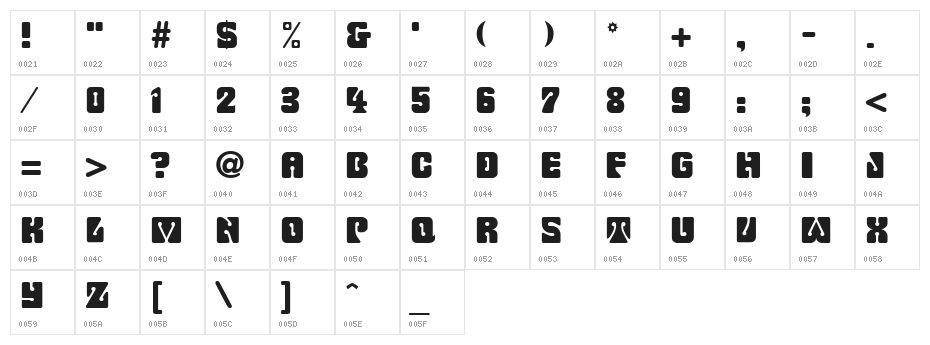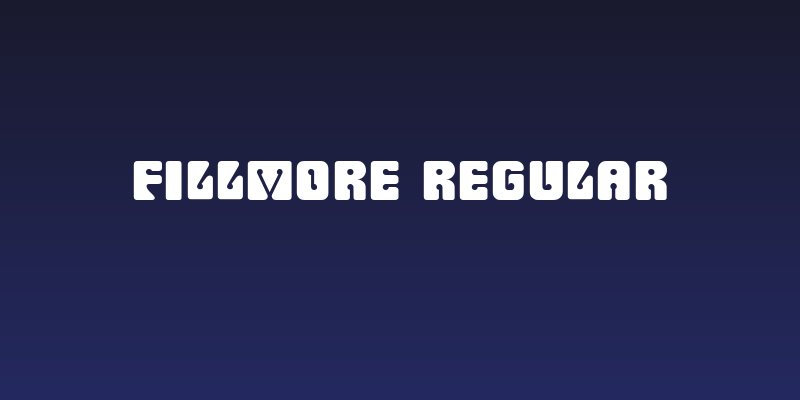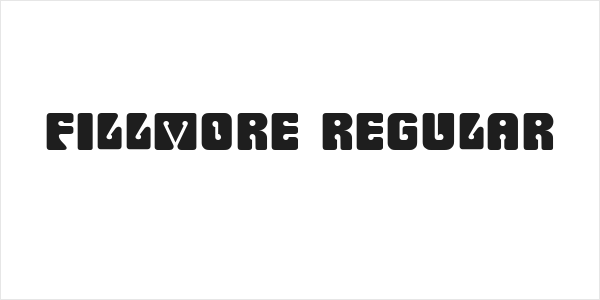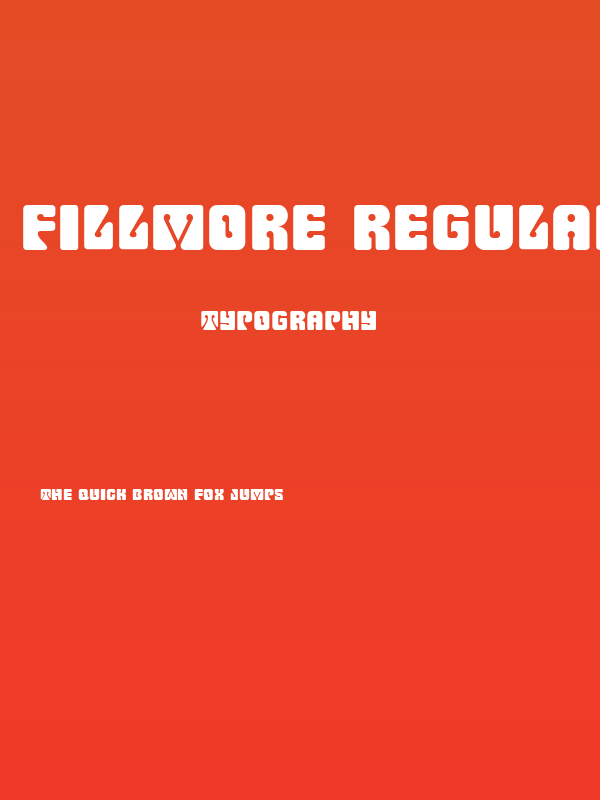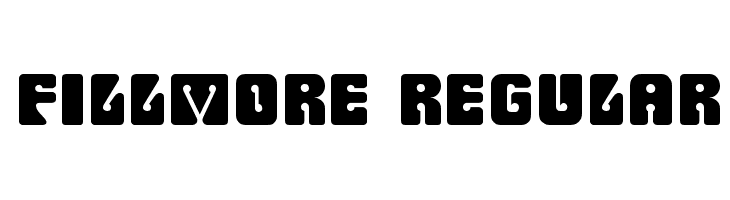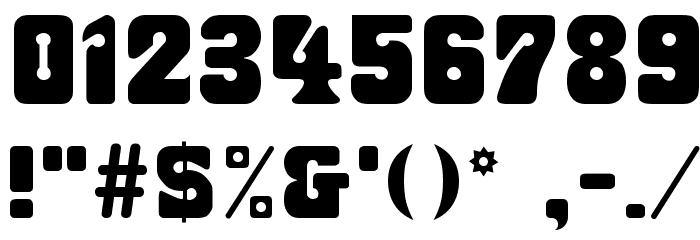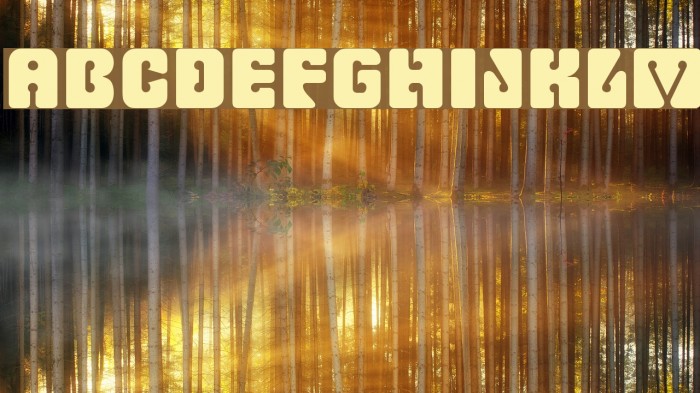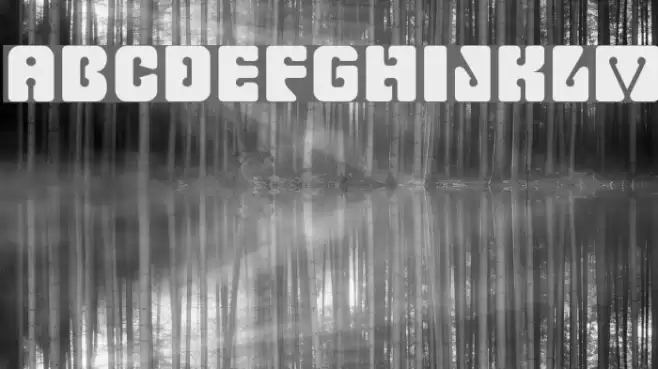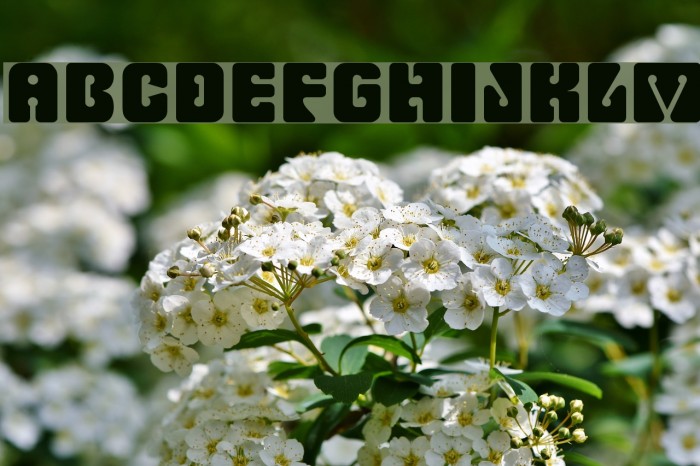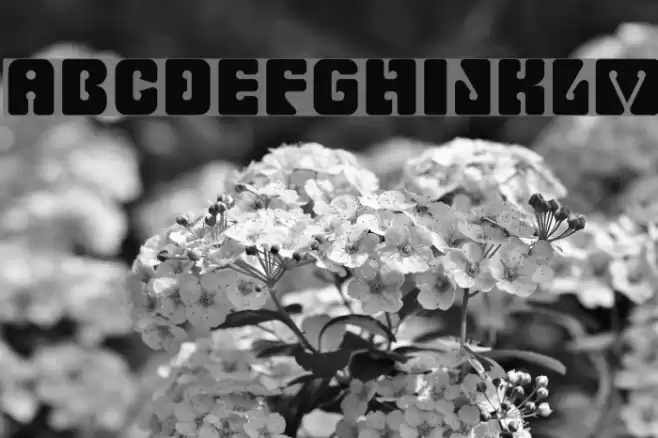
Fillmore Regular Font
Fillmore Regular Description
This font features a bold and striking design with a strong geometric influence. The characters are blocky and robust, with a unique cut-out style that adds a modern and playful touch. The uppercase and lowercase letters maintain a consistent weight, creating a cohesive look. The numbers are equally bold, ensuring visibility and impact. Special characters are designed with the same boldness, making them stand out. This font is perfect for projects that require a strong visual presence.
| Proposed Projects | Ideal for posters, logos, branding, and headlines where a strong visual impact is needed. |